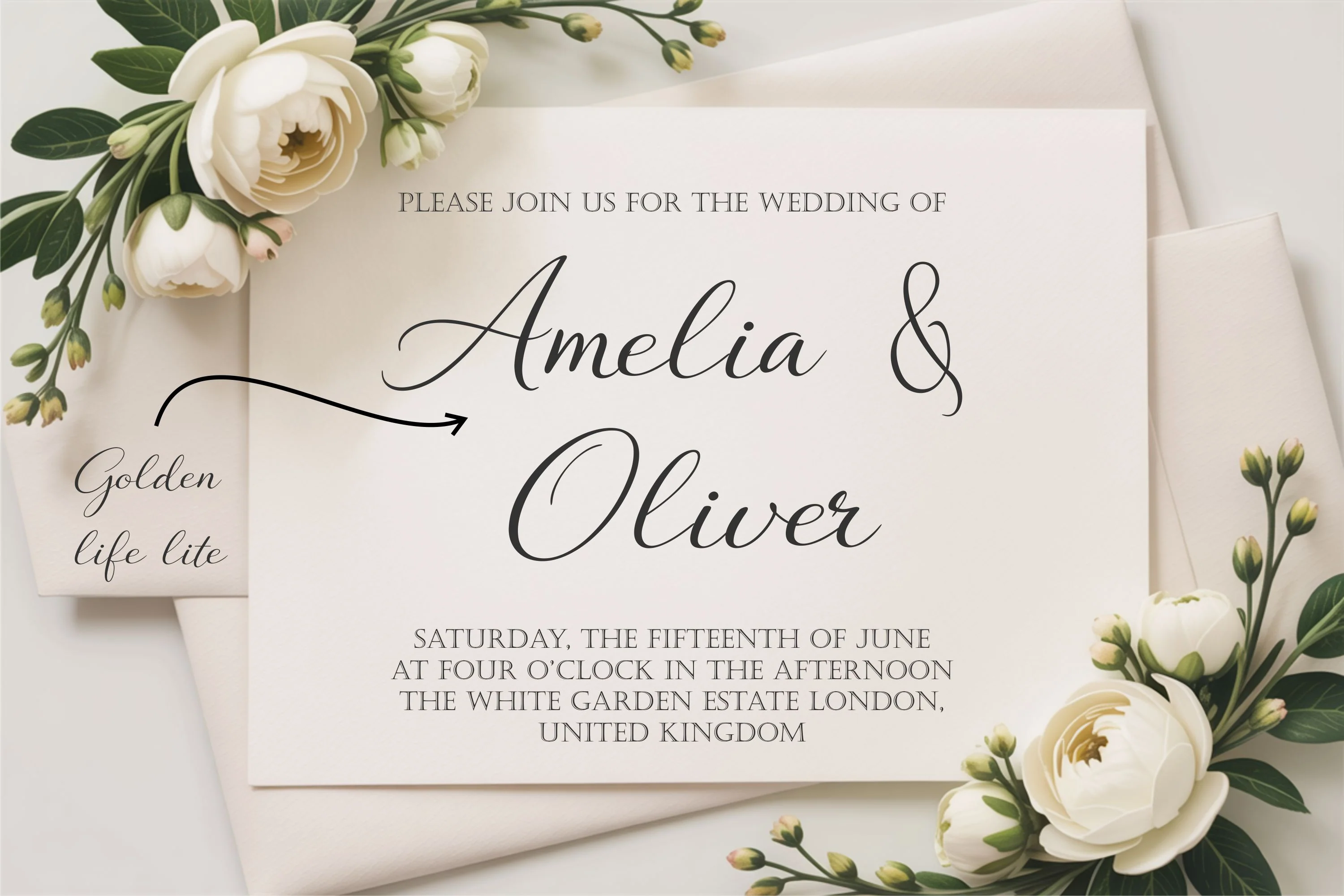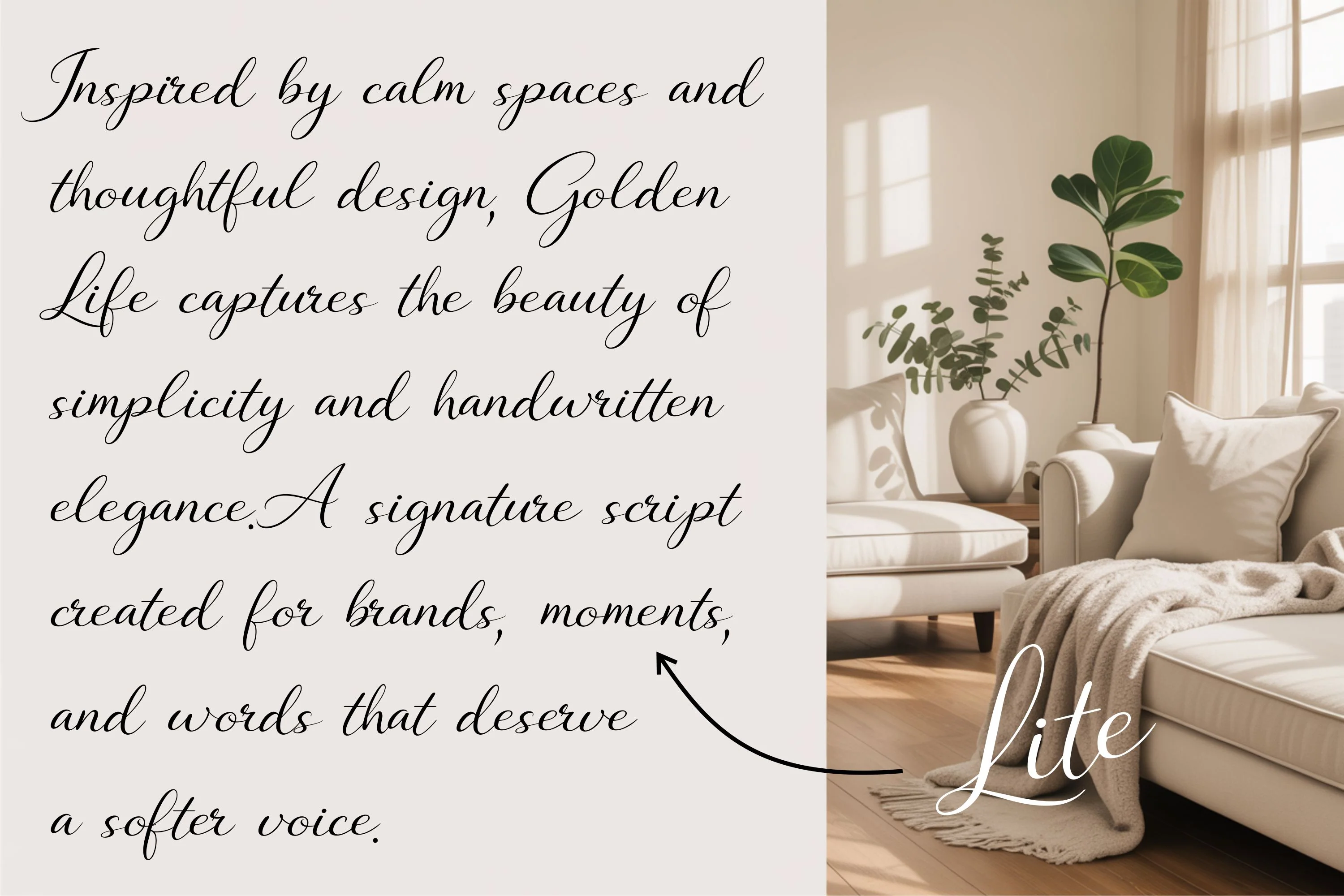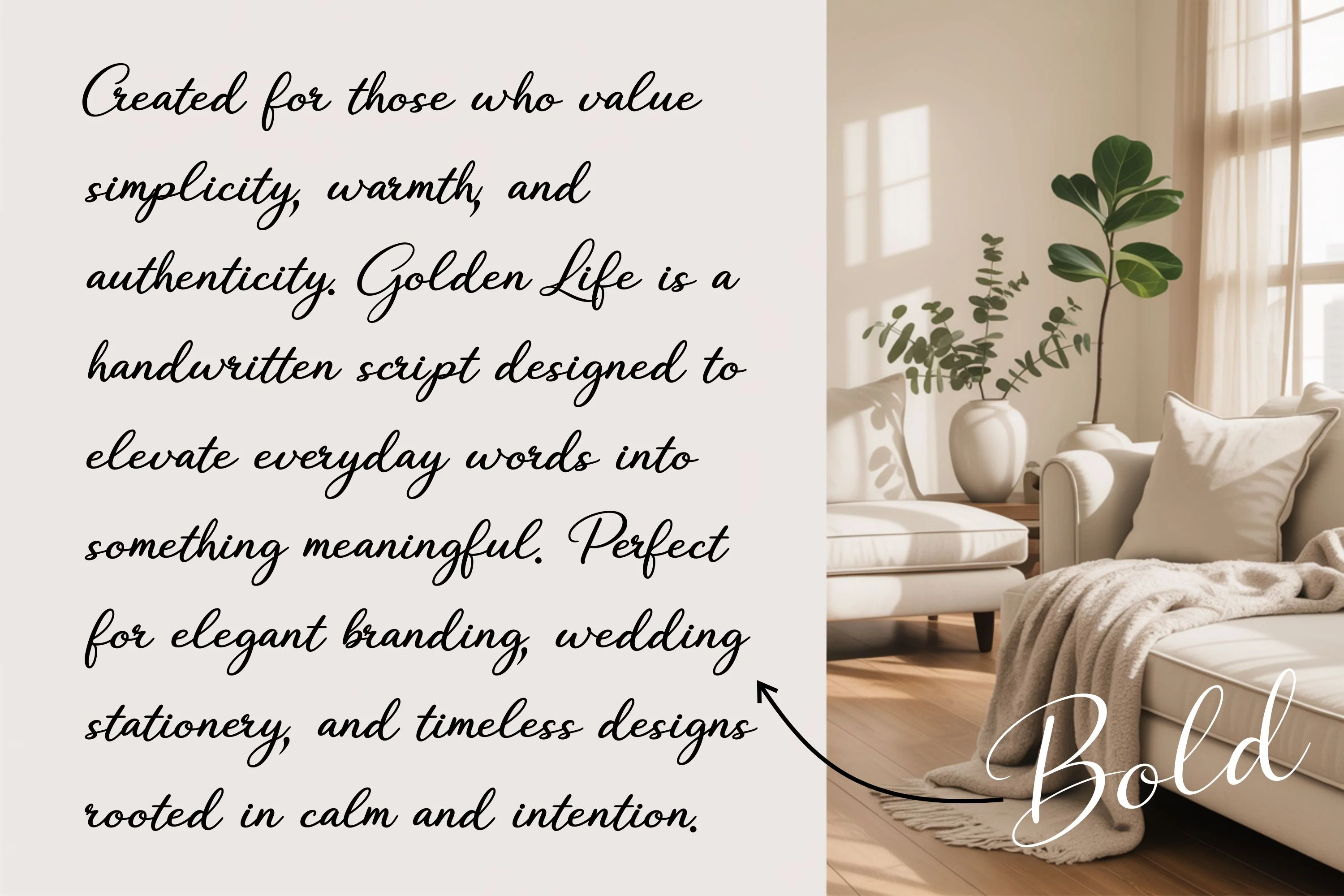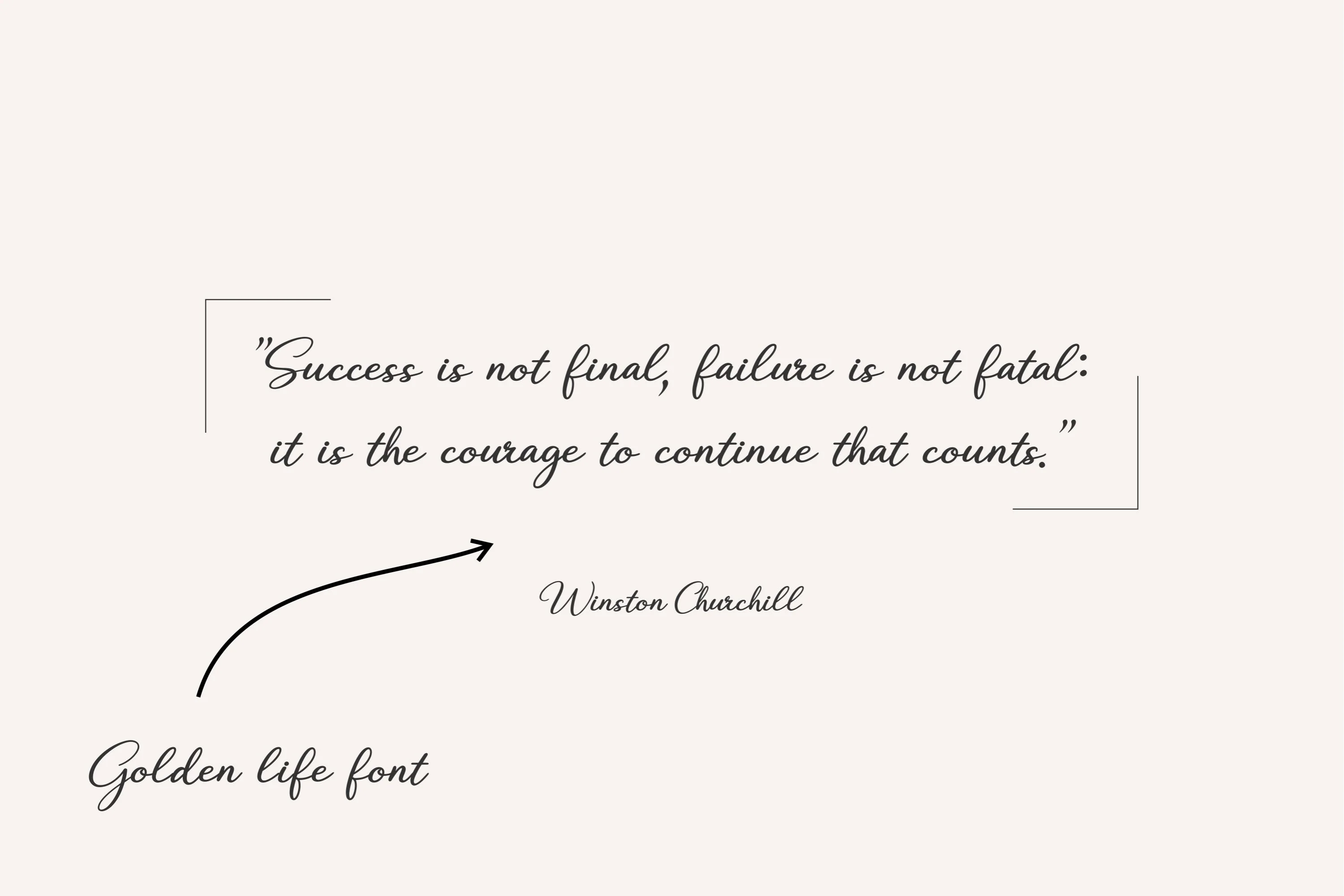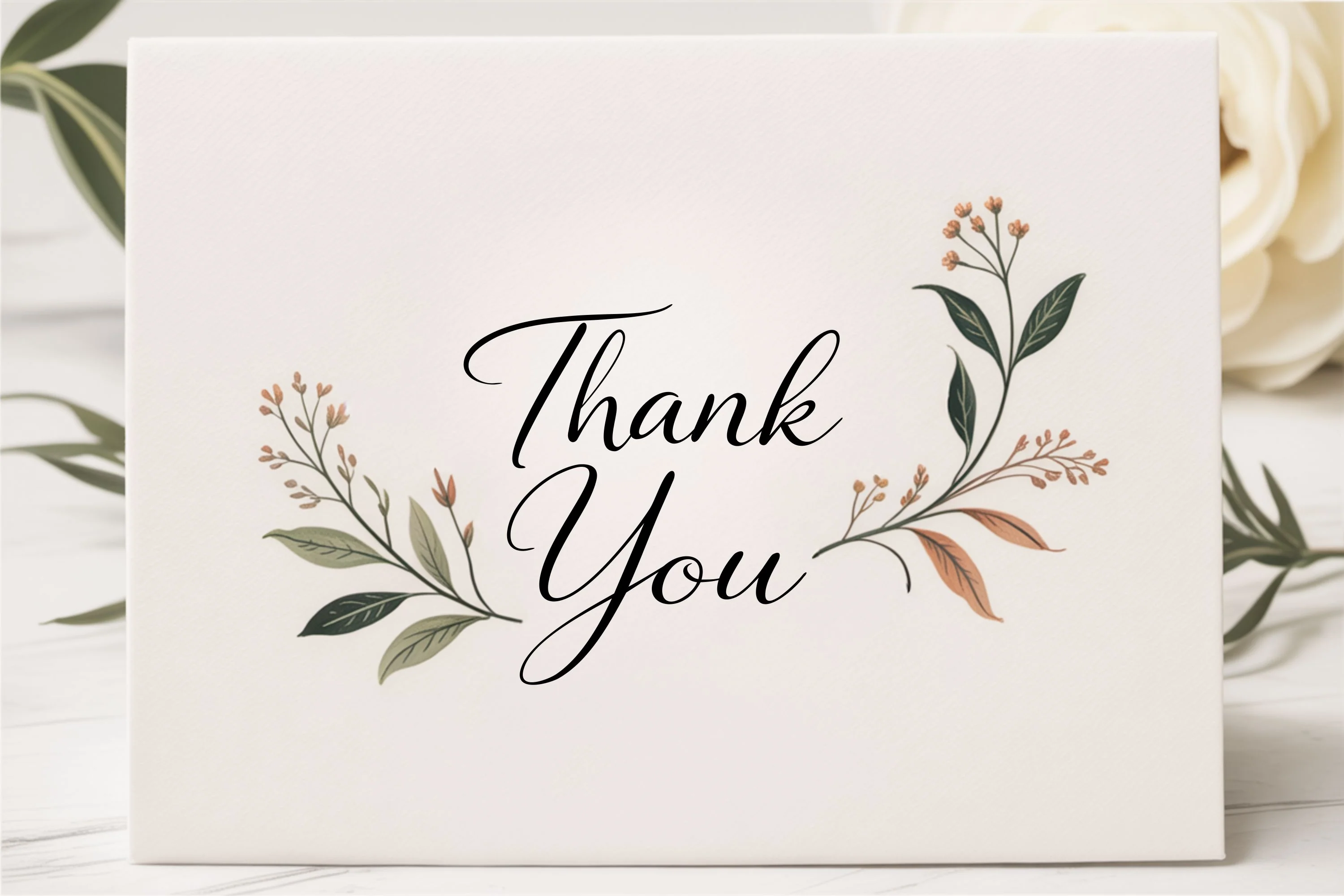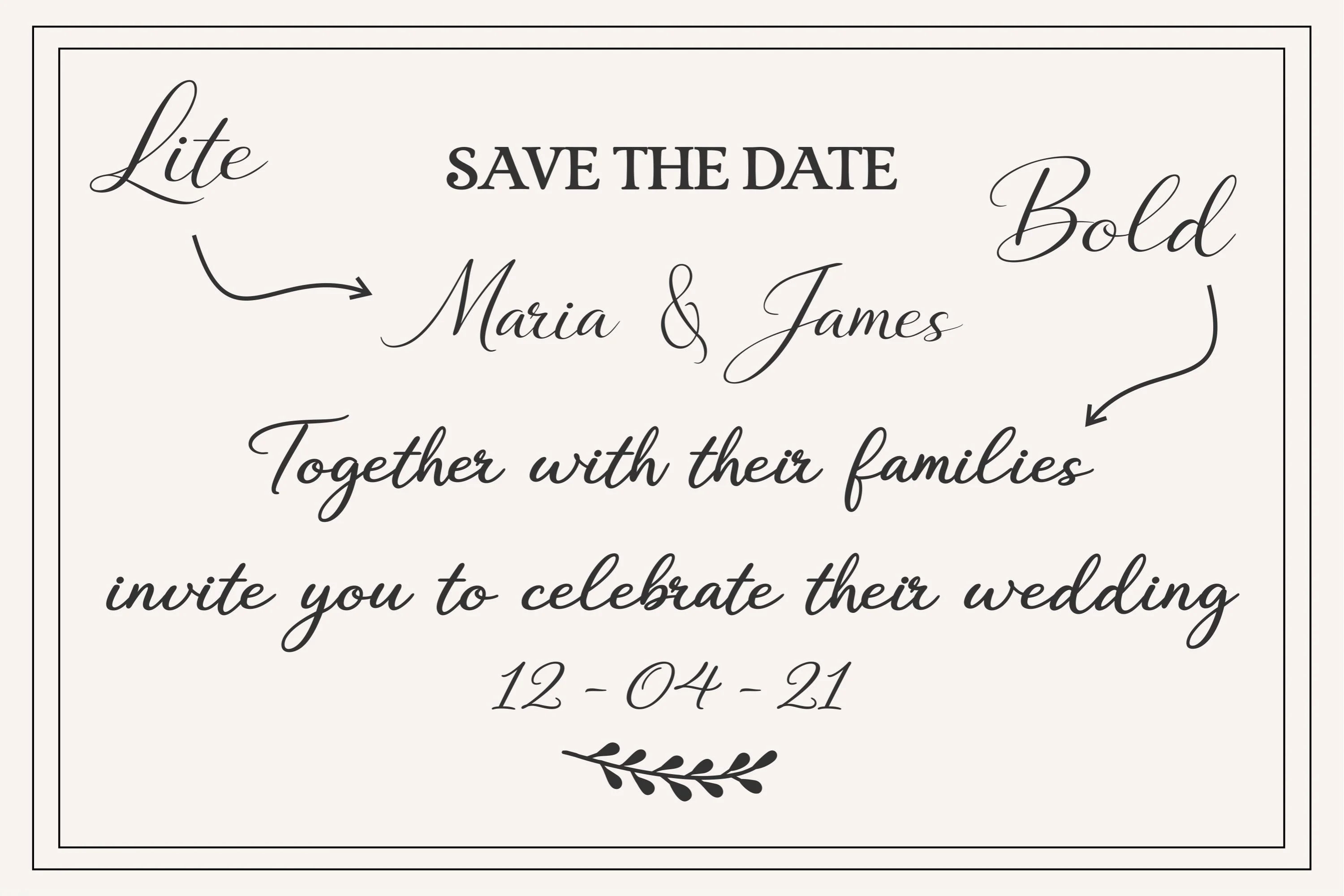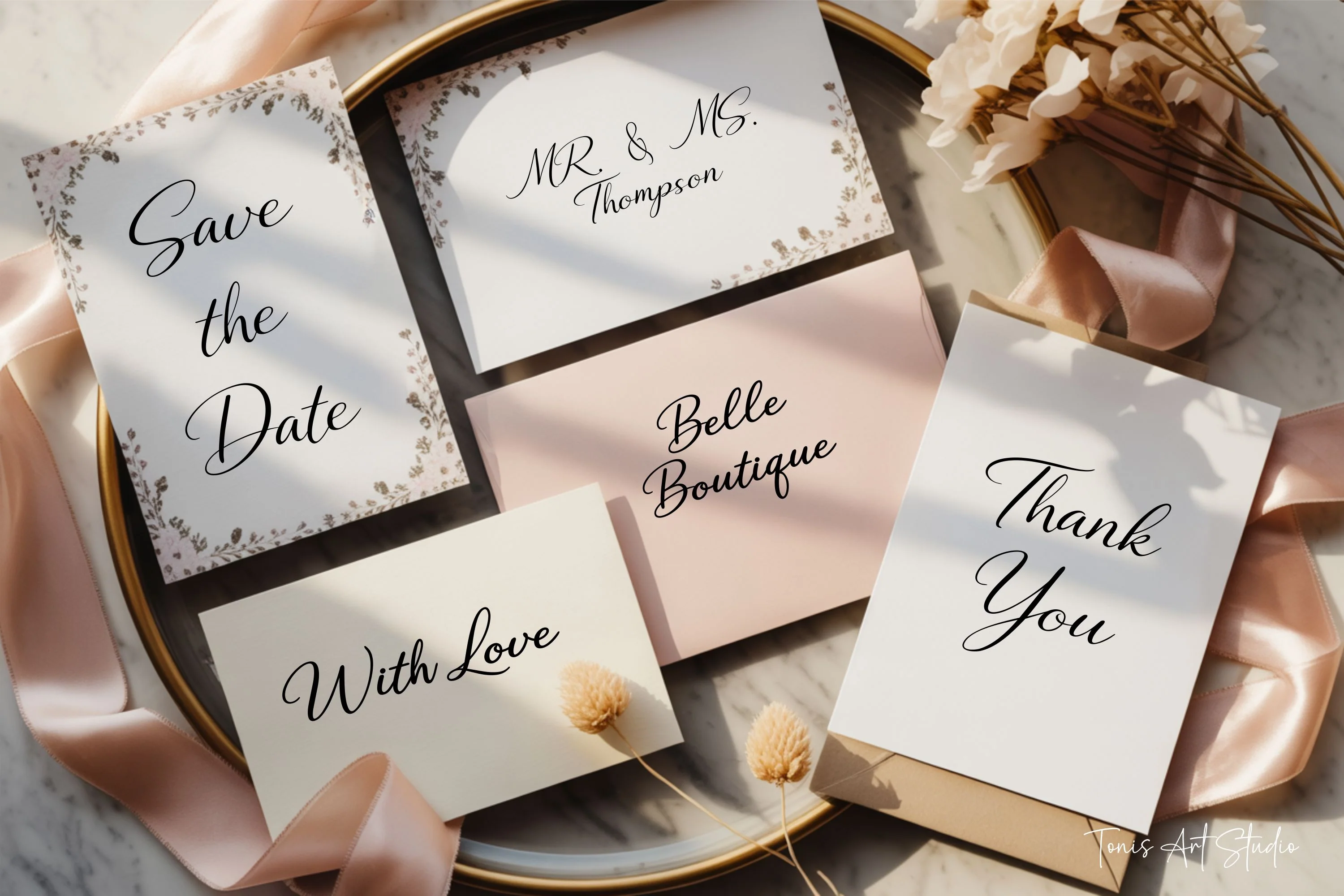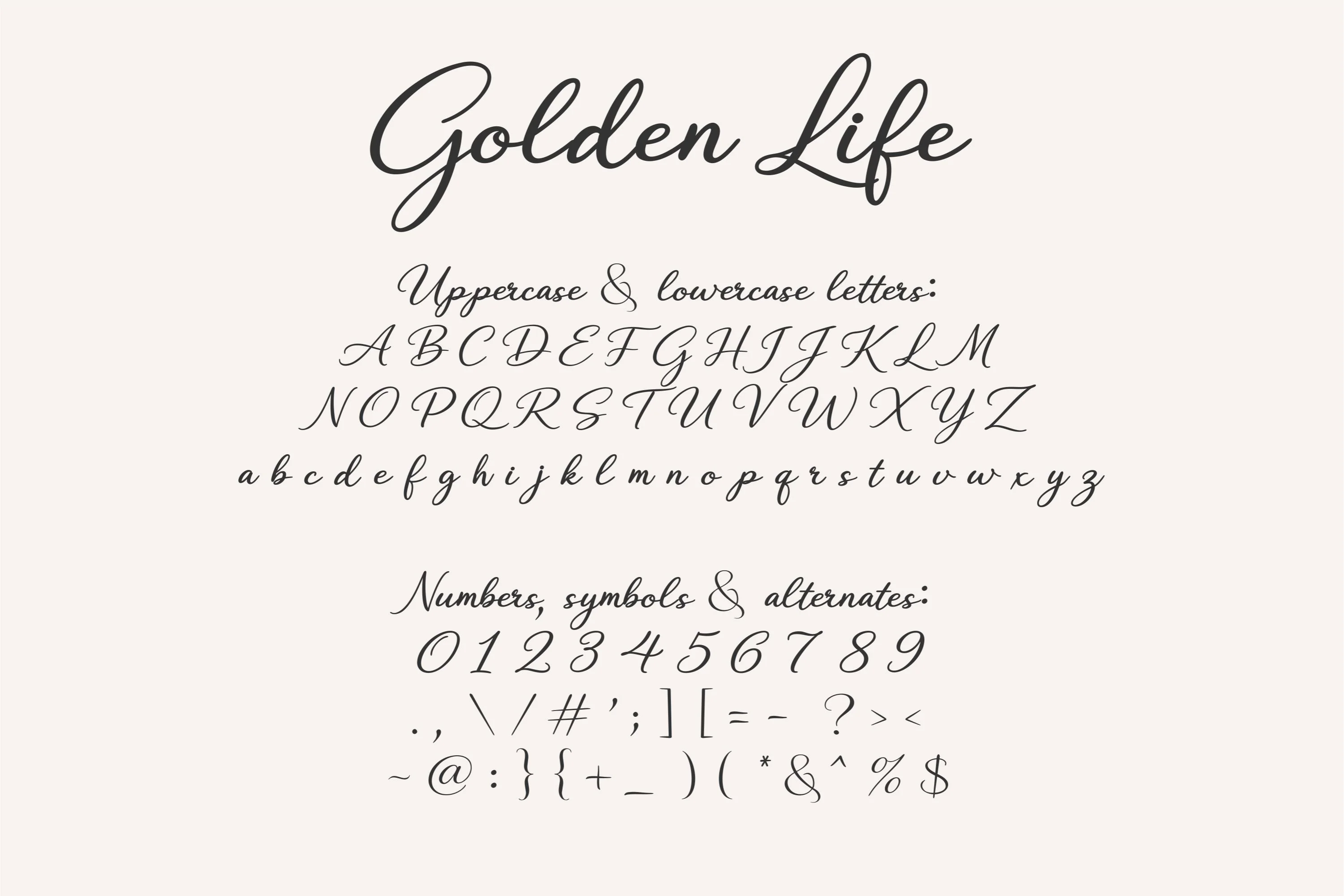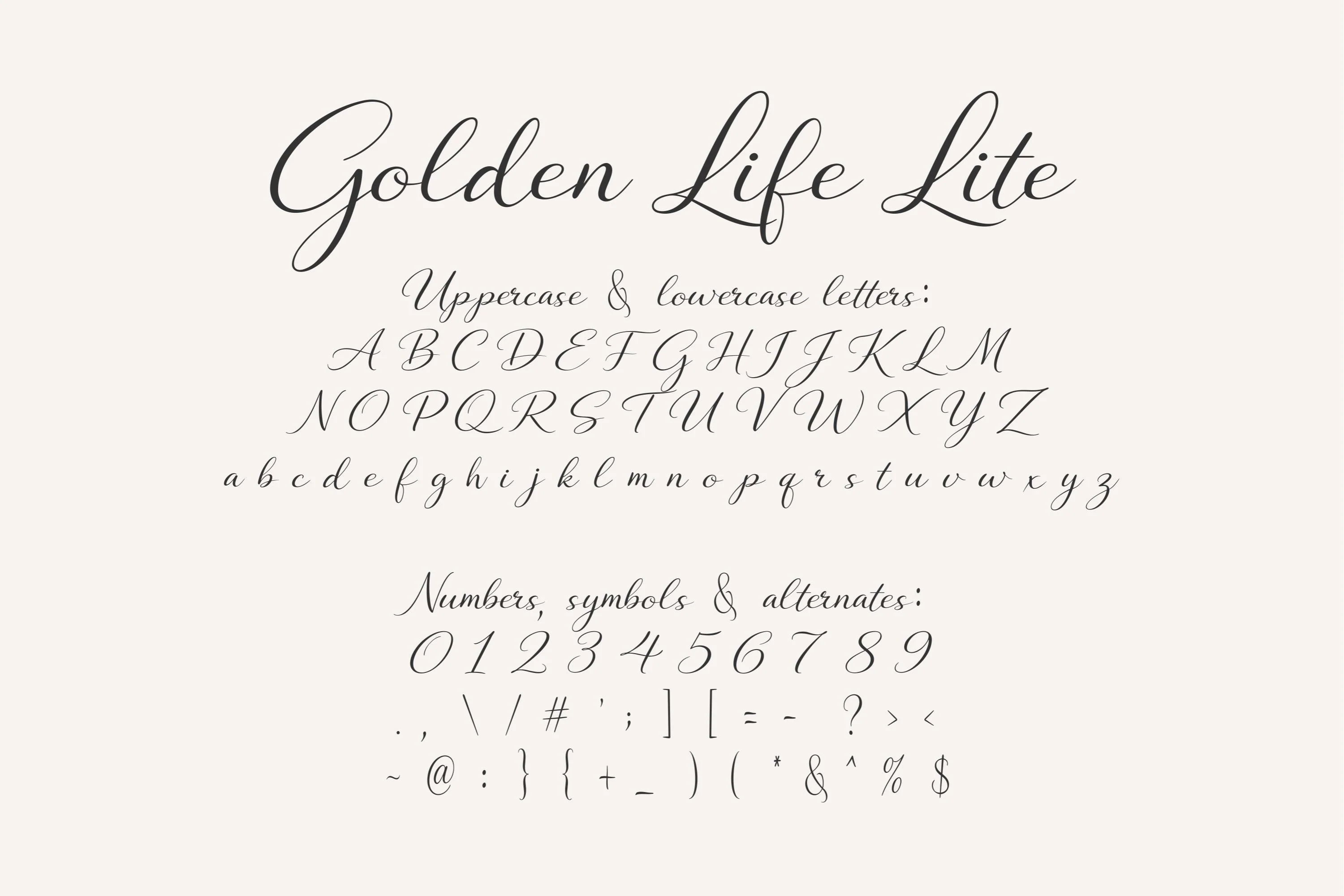
Golden Life Fonts - Handwritten Script Font, Elegant Wedding & Branding Font
Golden Life is an elegant handwritten signature script font duo created to express calm, warmth, and timeless beauty. Inspired by thoughtful design and natural handwriting, this font brings a refined yet approachable feel to modern typography.
The duo includes two complementary styles, Regular and Lite, allowing you to create contrast, hierarchy, and softness within the same aesthetic. The Regular style feels confident and expressive, while the Lite version offers a delicate, airy appearance ideal for refined layouts.
Golden Life is perfect for wedding stationery, invitations, branding, logos, quotes, packaging, editorial layouts, social media graphics, and lifestyle designs. Its smooth curves and graceful swashes add personality while remaining clean and highly readable.
The font includes uppercase and lowercase letters, numbers, symbols, and punctuation, making it suitable for both print and digital projects. Golden Life is designed for creators who value simplicity, elegance, and a softer visual voice.